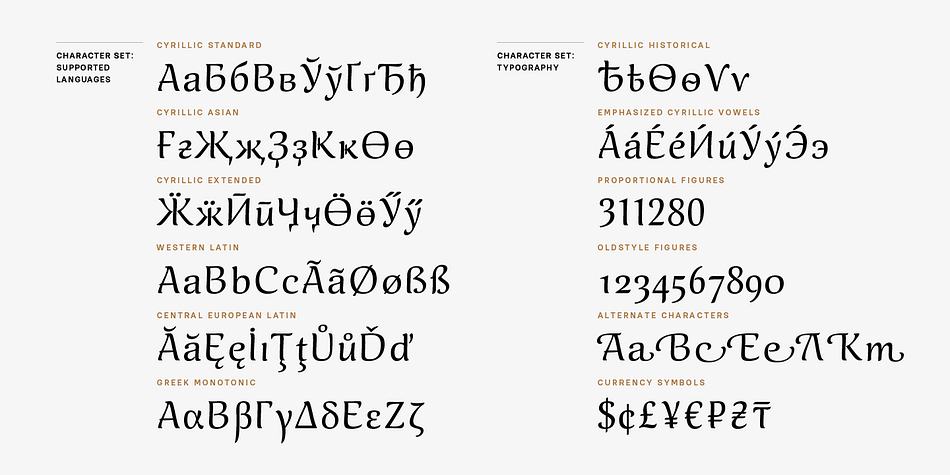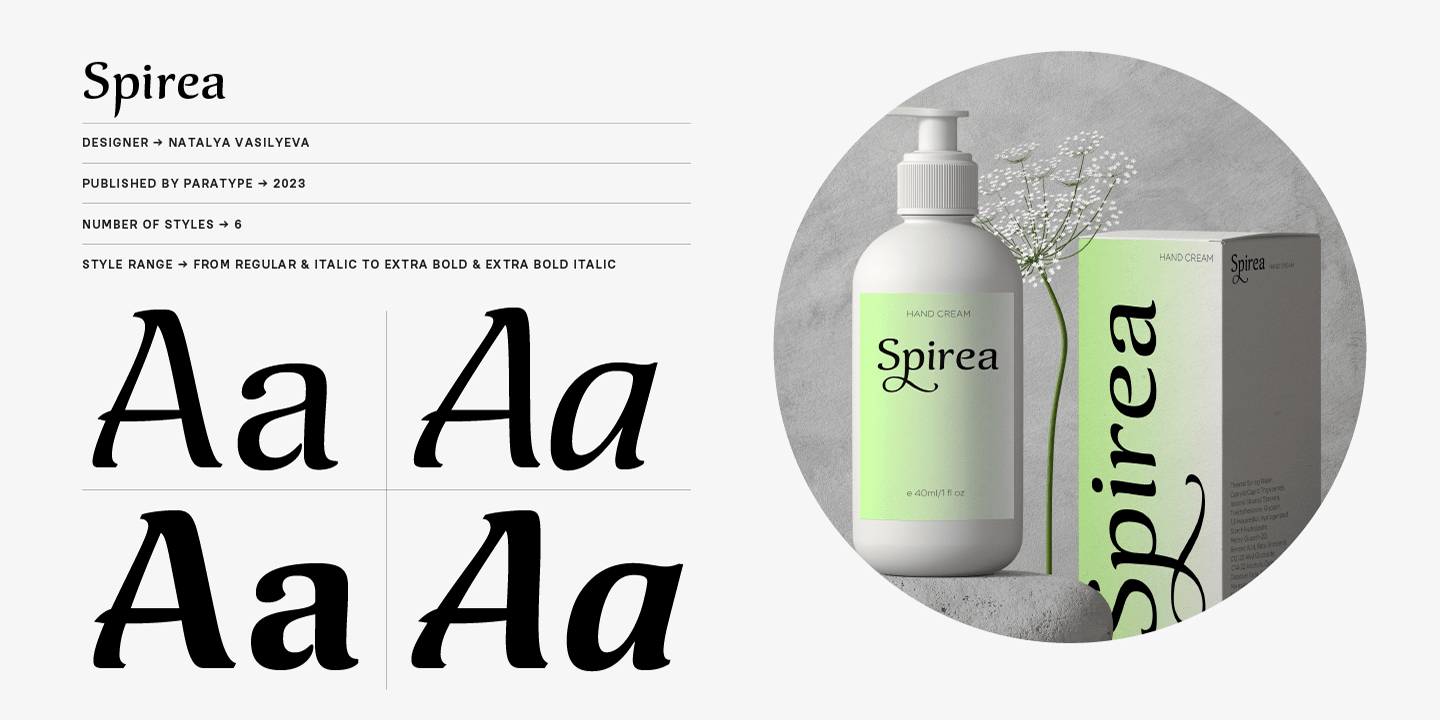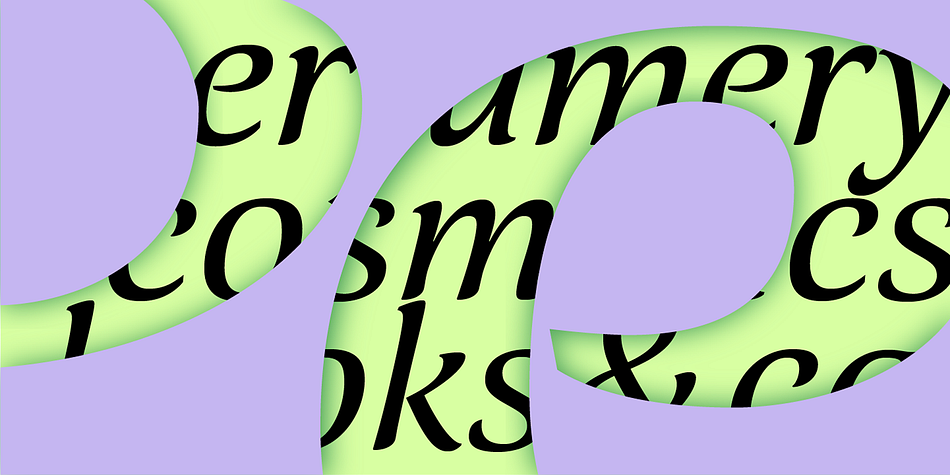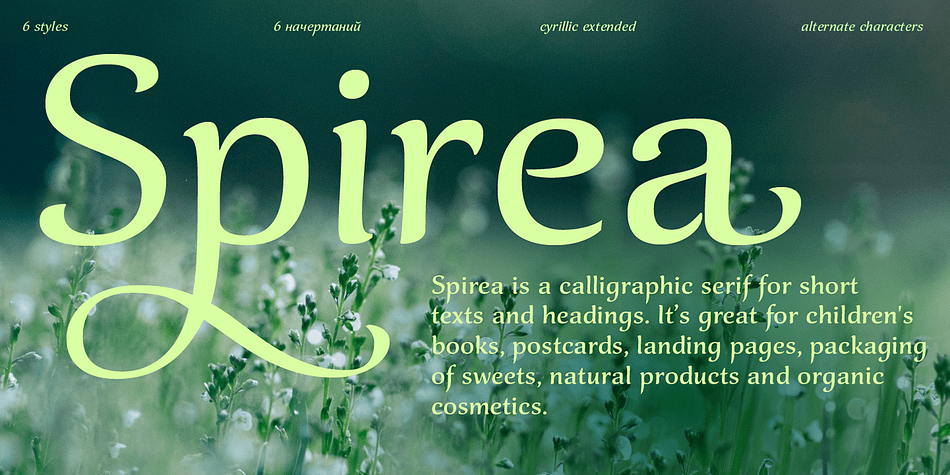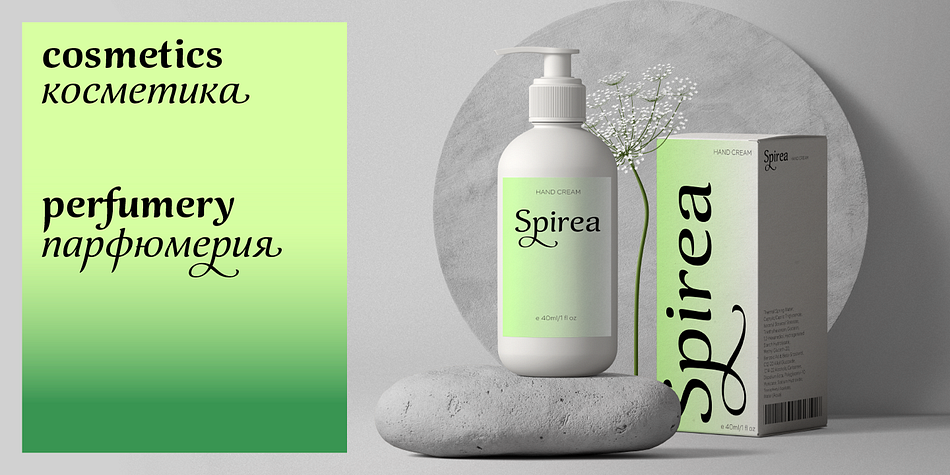
Spirea
Designed by Natalia Vasilyeva, Spirea is a serif font family. This typeface has six styles and was published by ParaType.
Spirea is a calligraphic serif for short texts and headings. It’s great for children’s books, postcards, landing pages, packaging of sweets, natural products and organic cosmetics. The character set includes alternates and strokes, extended Latin, extended Cyrillic and Greek. The author of Spirea is Natalia Vasilyeva. The typeface was released by Paratype in 2023.
Designer Natalia Vasilyeva